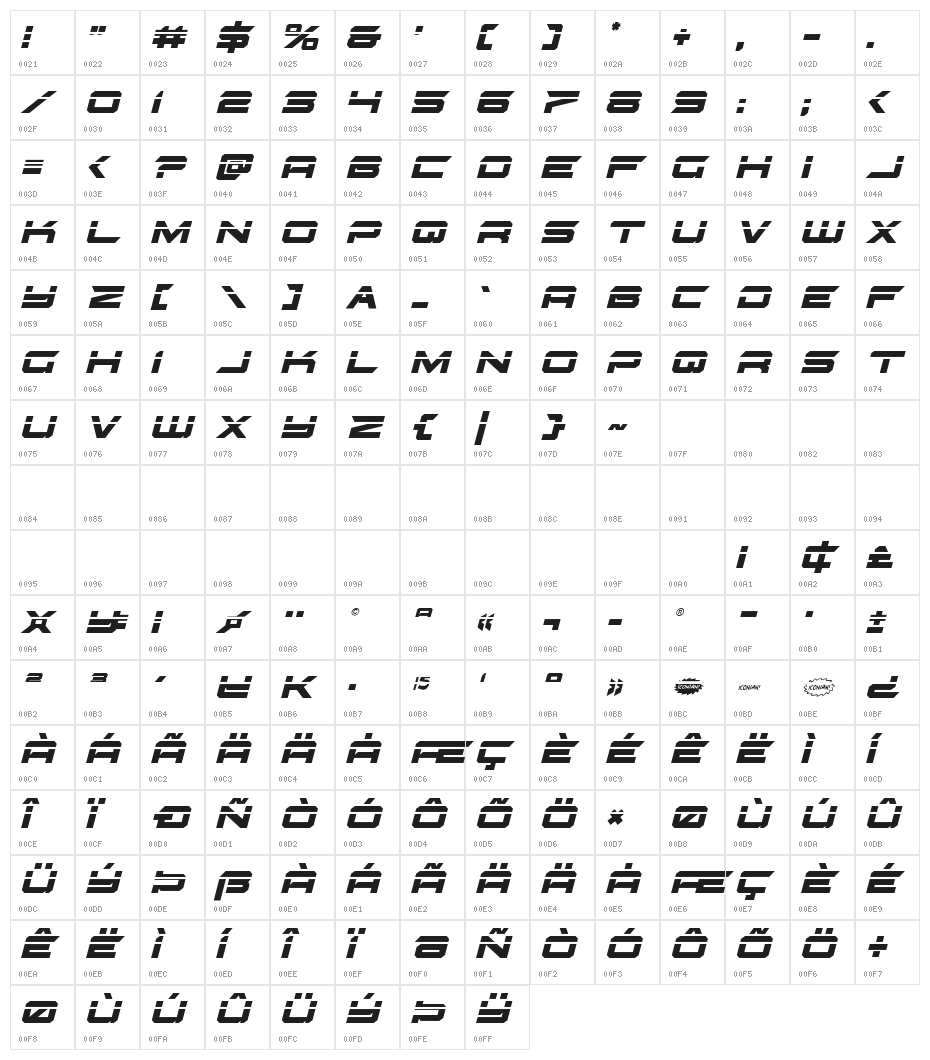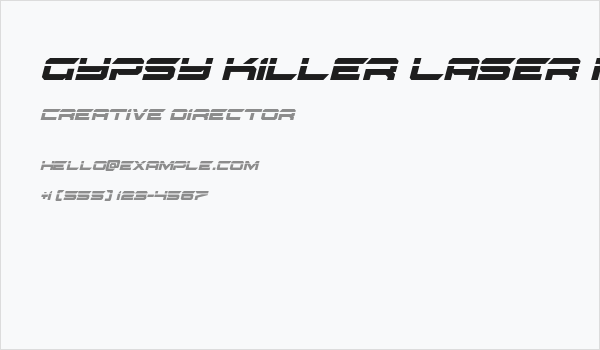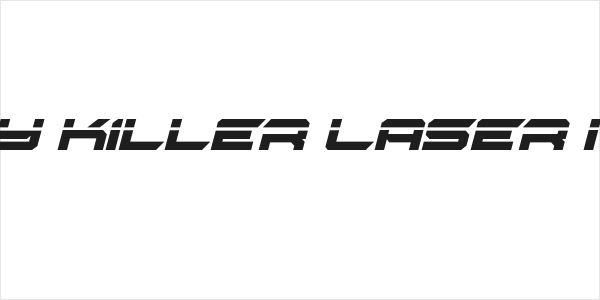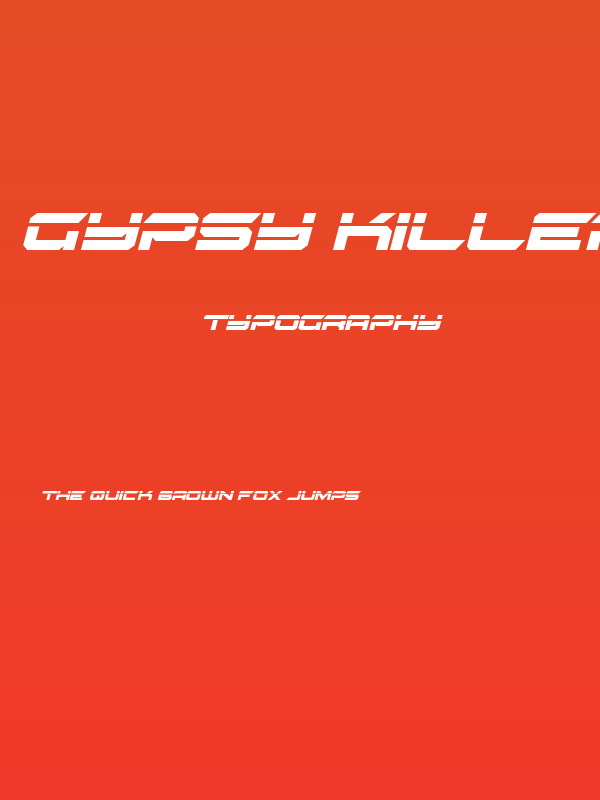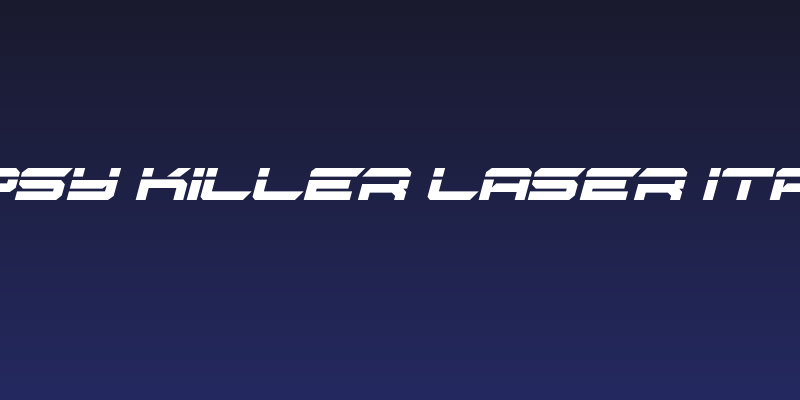
Gypsy Killer Laser Italic Font
Gypsy Killer Laser Italic Description
This font features a futuristic and angular design, characterized by sharp edges and a slanted, italicized style. The letters are bold and dynamic, with a distinct geometric structure that gives them a modern and technological appearance. The uppercase and lowercase letters maintain a consistent style, with the numbers and special characters following suit. The overall look is sleek and aggressive, making it suitable for projects that require a strong visual impact. The font's unique style is ideal for conveying a sense of speed and innovation.
Proposed ProjectsIdeal for technology branding, sci-fi movie posters, video game titles, and futuristic product packaging.